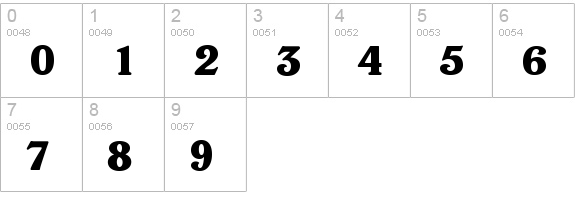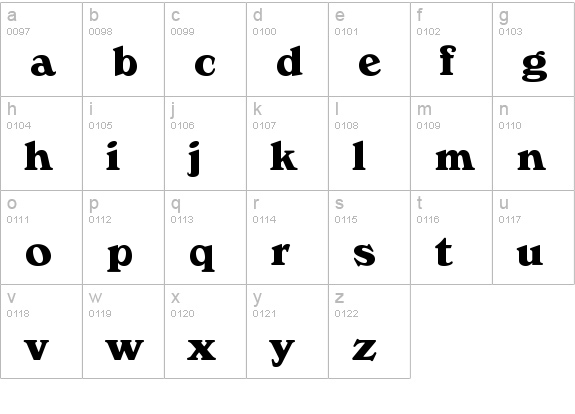
Verona-Bold Font Details
Verona-Bold is a strong, high-contrast variant in the Verona typeface family \xE2\x80\x94 well suited to headlines, attention-grabbing titles, and strong calls-to-action.
Verona-Bold font exudes a sense of boldness and confidence, making it the perfect choice for those seeking to make a statement with their typography. Its strong and sturdy letterforms command attention, while its subtle curves add a touch of elegance. This versatile font is suitable for a wide range of design projects, from eye-catching headlines to impactful logos. One of the best features of Verona-Bold font is that it is freely available to download at FontsMarket.com. This means that designers and creatives can access this exceptional typeface without having to worry about any cost. Whether you're a professional graphic designer or a hobbyist looking to enhance your creations, Verona-Bold font provides you with the freedom to experiment and explore your creative boundaries. With Verona-Bold font, you can bring your design visions to life with ease. Its clean and legible characters ensure that your text remains readable, even at smaller sizes. The font's high-quality design and attention to detail make it a reliable choice for both print and digital applications. Whether you're designing a logo for a modern tech startup, creating a magazine layout, or crafting an attention-grabbing poster, Verona-Bold font is sure to make a lasting impression. Its bold and impactful presence will help your designs stand out from the crowd, leaving a memorable mark on your audience. Don't miss out on the opportunity to experience the power of Verona-Bold font. Head over to FontsMarket.com and download this exceptional typeface for free. Unleash your creativity and take your designs to new heights with Verona-Bold font.